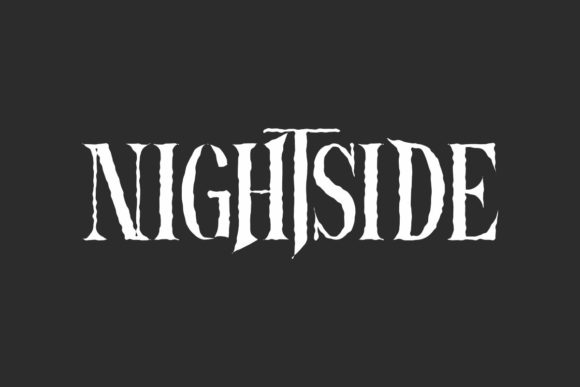
Unlock the Power of Nightside Font: A Typographic Force to Reckon With
In a world where visual communication reigns supreme, let Nightside Font be your weapon of choice. This bold and rough textured serif font, crafted by the ingenious minds at Vintype, is not just a font; it's an experience. Watch in awe as your designs transform into captivating masterpieces, imbued with an energy that commands attention.
Step into the world of Nightside, where grit meets elegance. Its chunky letterforms, reminiscent of war-time posters, exude a rugged charm that will leave you spellbound. Unleash your creativity and let Nightside take center stage, whether you're crafting logos that pack a punch or creating posters that demand attention.
With Nightside by your side, you'll discover a world of possibilities. Its versatility knows no bounds, allowing you to effortlessly elevate your branding, marketing materials, and social media graphics to new heights. Embrace the power of Nightside and witness the transformation of your designs into captivating works of art.
Don't settle for ordinary fonts that blend into the background. Choose Nightside, the font that breaks the mold and leaves a lasting impression. Its bold personality will inject life into your projects, adding a touch of intrigue and sophistication that will keep your audience captivated.